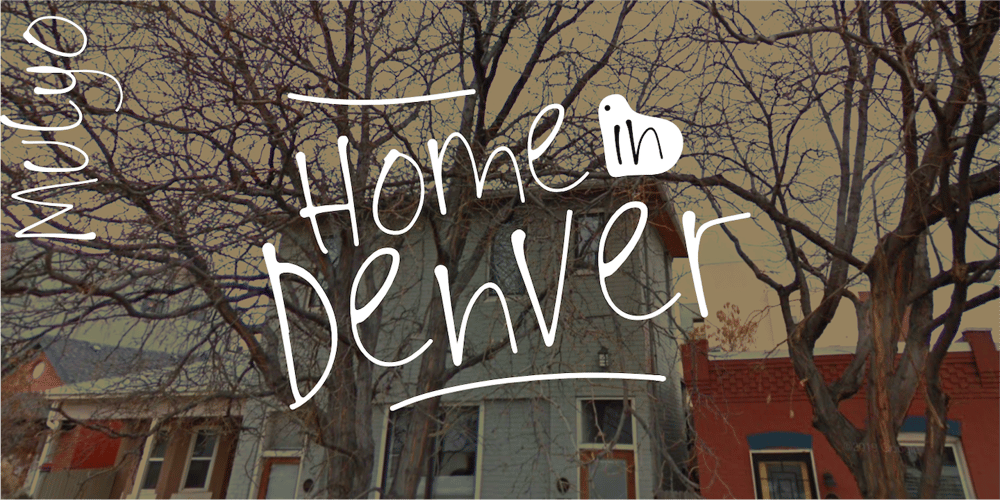
Mulyo Tenan Font Family was designed by Wahyu Eka Prasetya, Afiat Sukmaraga and published by Hati. Mulyo Tenan contains 1 styles and family package options. This font emulates natural handwriting, characterized by fluid strokes and a personal, informal touch. It captures the essence of handwritten notes, ideal for casual, friendly, and humanistic designs, adding warmth and authenticity. Do try.